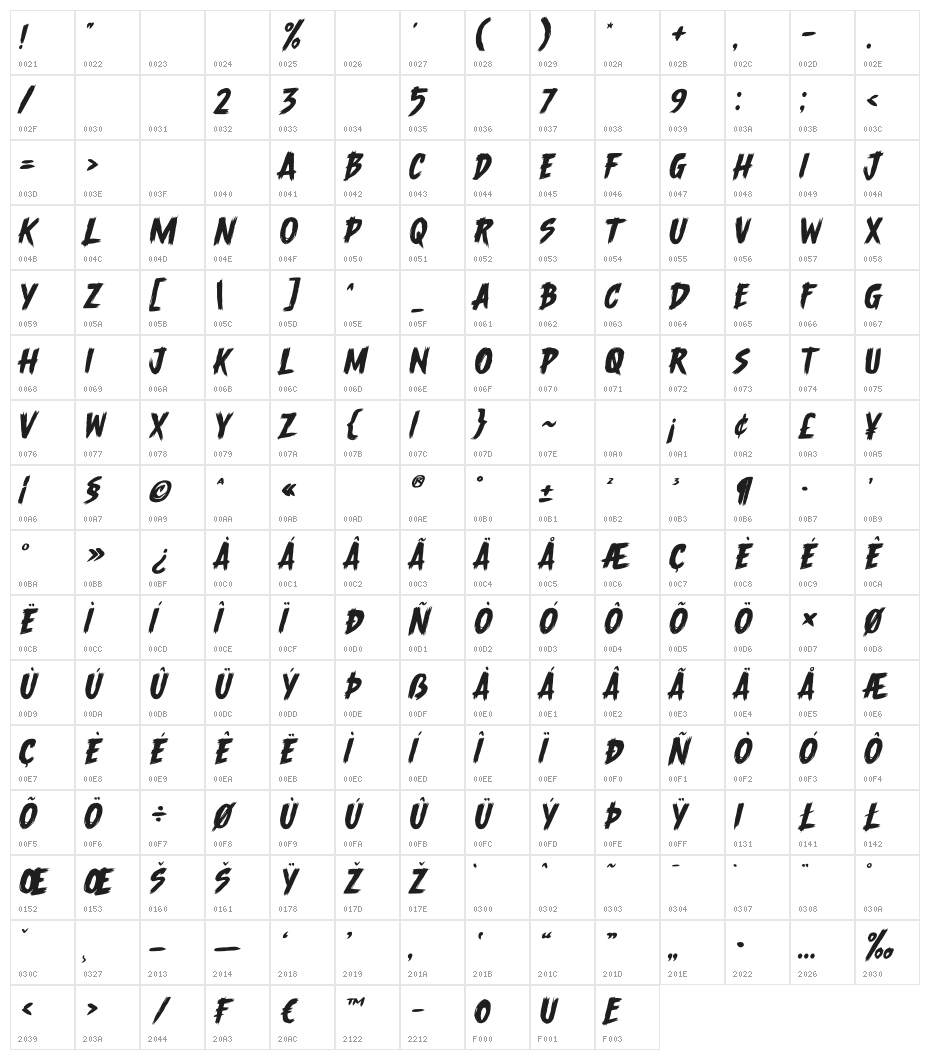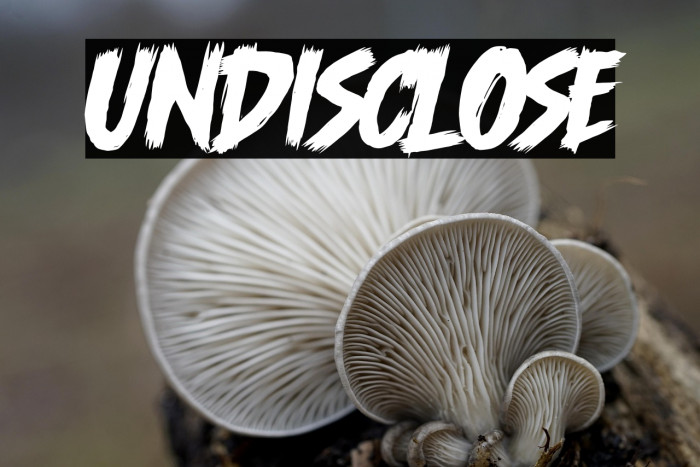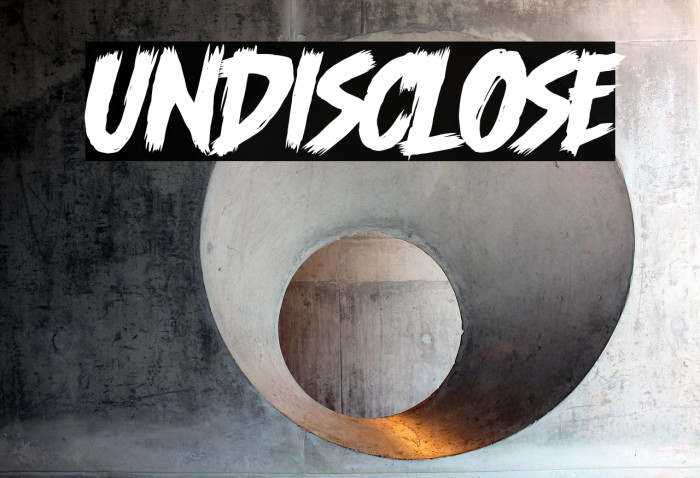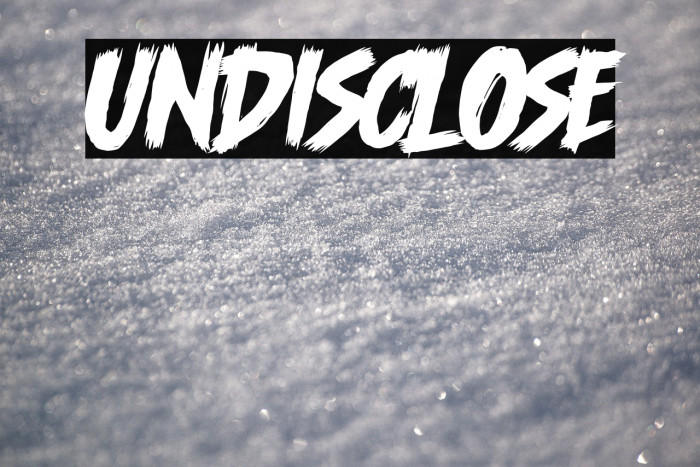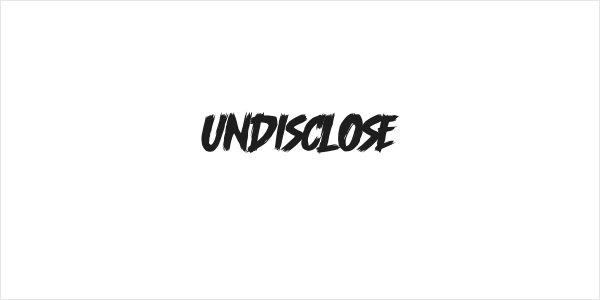
Undisclose Font
Undisclose Description
This font features a bold and dynamic brushstroke style, characterized by its sharp, jagged edges and energetic appearance. The letters are uppercase with a consistent slant, giving a sense of motion and intensity. The strokes are thick and uneven, creating a rugged texture that adds to its dramatic flair. The numbers and special characters maintain this bold, expressive style, making the font suitable for impactful designs. Its unique aesthetic is ideal for projects that require a strong visual presence.
| Proposed Projects | Ideal for posters, album covers, sports branding, and dynamic headlines. |